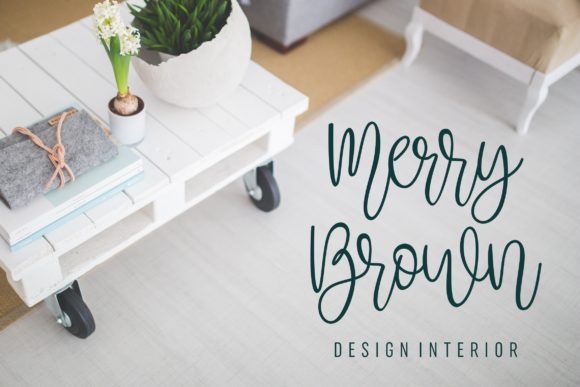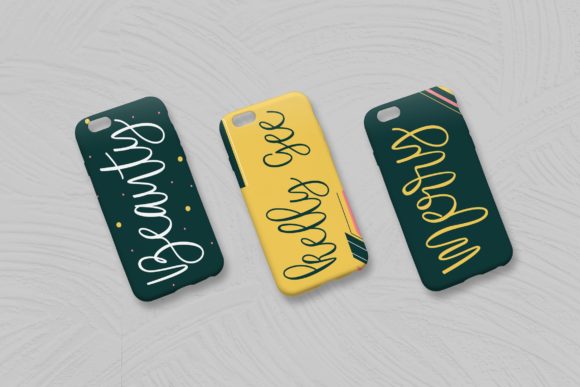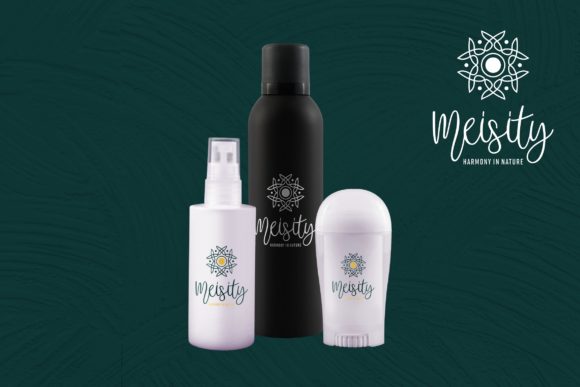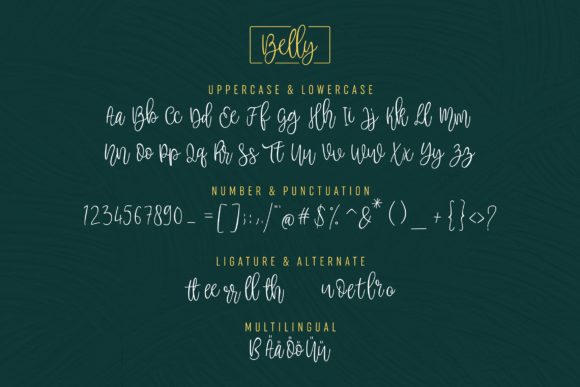
Belly Font
About Belly Font
Belly is a beautiful, relaxed and incredibly friendly handwritten font. Get inspired by its authentic feel and use it to create gorgeous wedding invitations, beautiful stationary art, eye-catching social media posts, and cute greeting cards!